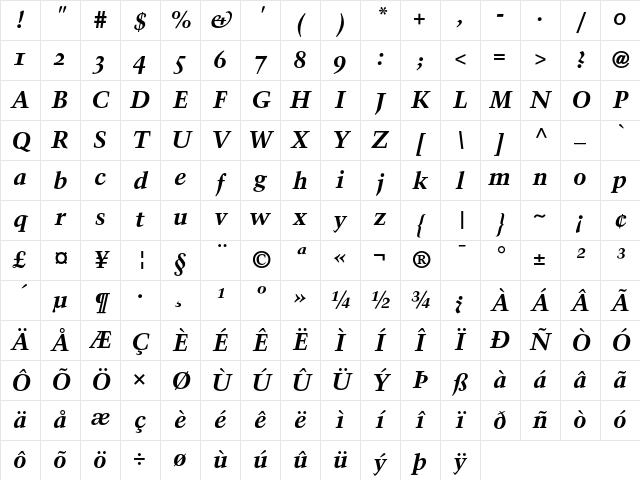
Trump Mediaeval Bold Italic Old Style Figures
Style: Bold Italic Old Style Figures
Design Context for Trump Mediaeval
Trump Mediaeval is a composed and adaptable typeface that performs quietly and consistently across a wide range of design contexts. The slanted form adds forward momentum and visual energy. Its bold stroke weight gives it real presence on the page.
Pro Tip: Use Trump Mediaeval for emphasis, pull quotes, and subheadings where its slanted energy can add rhythm to the layout.